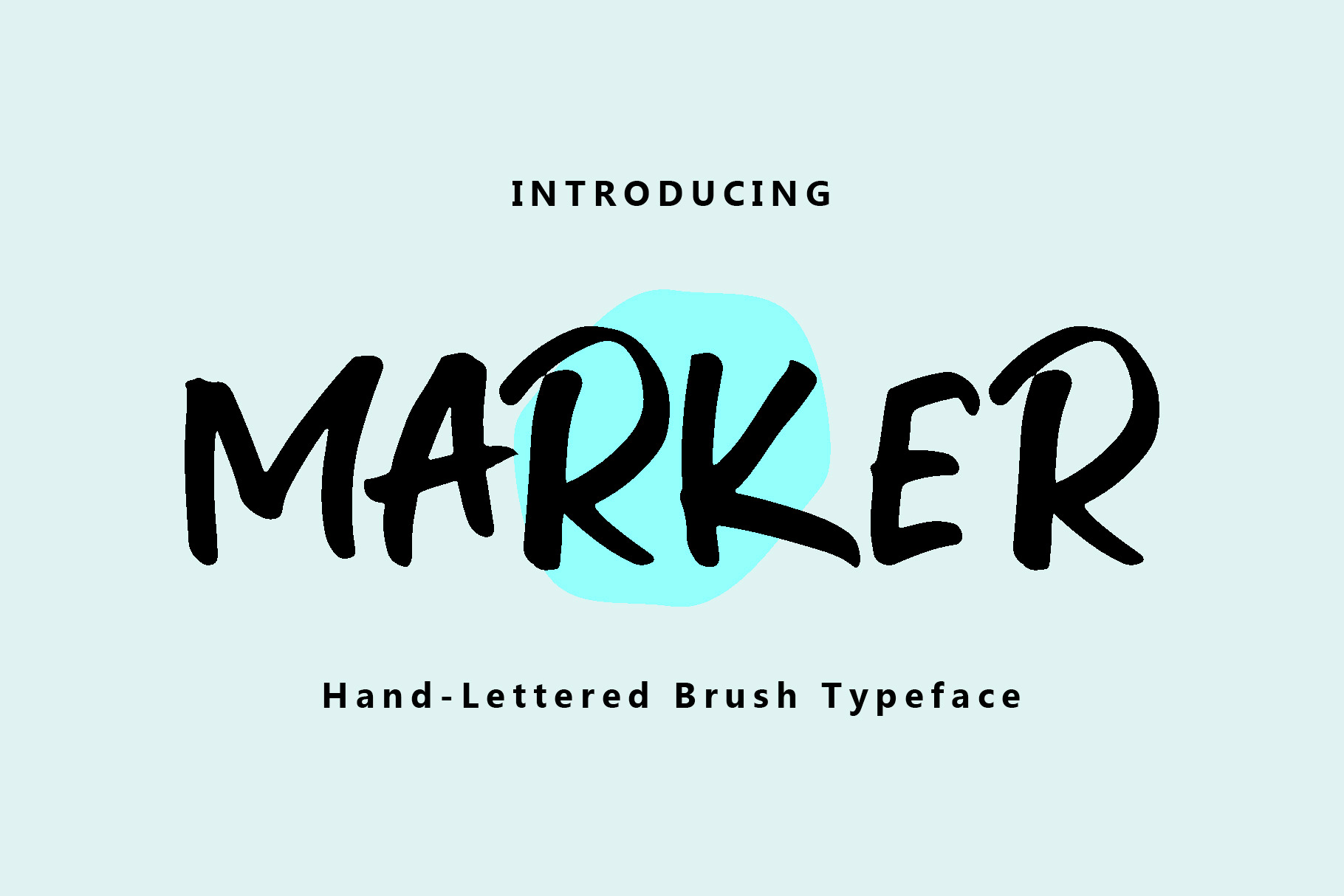
Marker Brush Font
Marker hand-lettered brush typeface. Suitable for logo fonts, poster designs, illustrations, branding, and others.
- All Uppercase
- Numeral
- Symbol